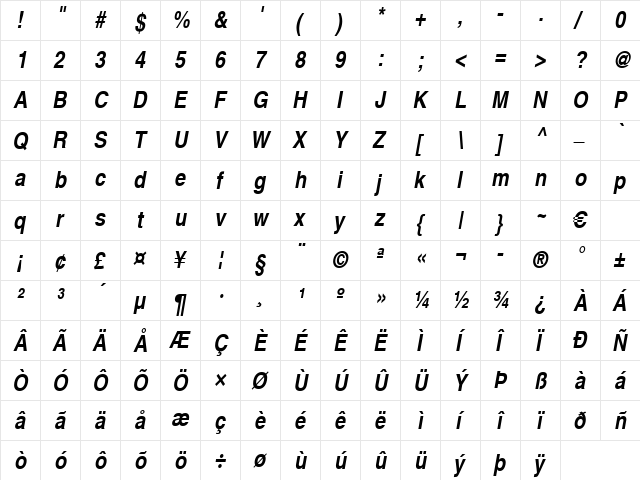
Sans Narrow Bold Italic Font Preview
Design Context for Sans Narrow Typeface
Sans Narrow is a composed and adaptable typeface that performs quietly and consistently across a wide range of design contexts. The dynamic lean of this cut emphasises speed and emphasis in any layout. The heavy weight commands attention and anchors typographic hierarchies. The condensed width makes it efficient for tight spaces without sacrificing legibility.
Pro Tip: Try Sans Narrow for annotation and caption copy alongside an upright companion — the contrast in angle creates a dynamic but ordered typographic system.